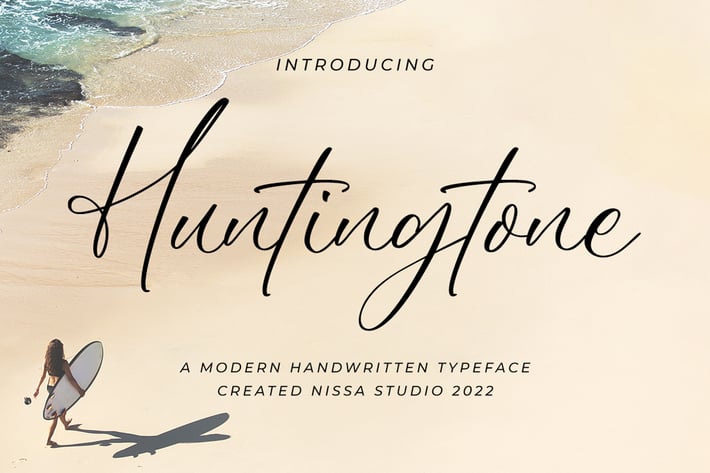
Huntingtones - Signature Font
Huntingtone is an elegant handwritten font that feels both gorgeous and distinct. It looks beautiful on wedding invitations, thank you cards, quotes, greeting cards, logos, business cards, and every other design which needs a customized touch.
Modern Handwritten Font
Beautiful Swash (Ending tail)
Beautiful Titling (Beginning tail)
Special Ligatures